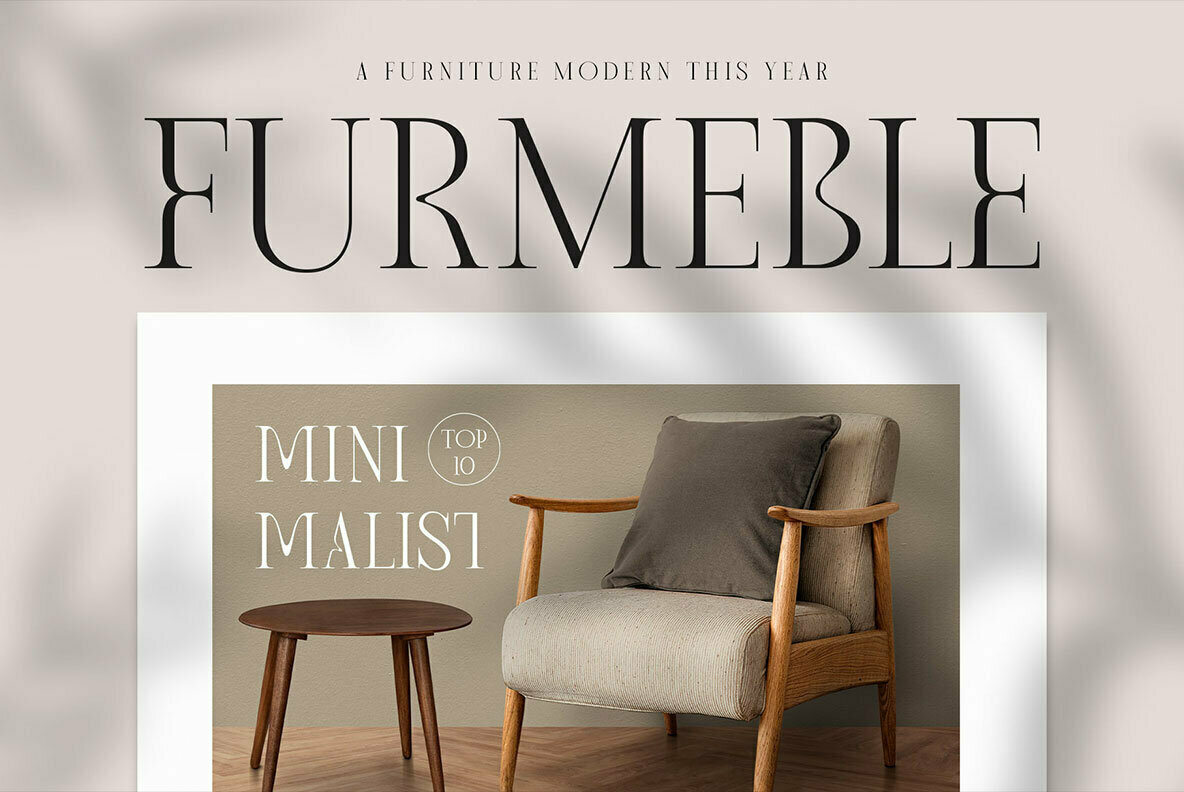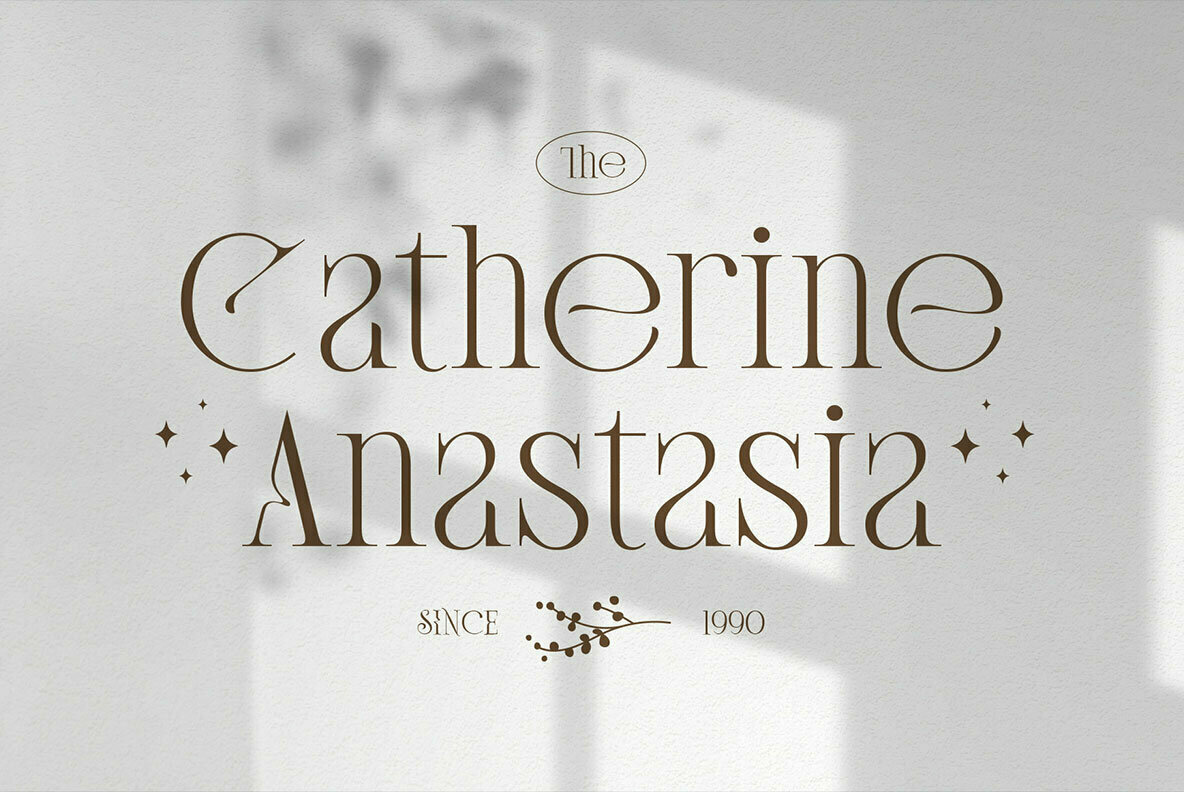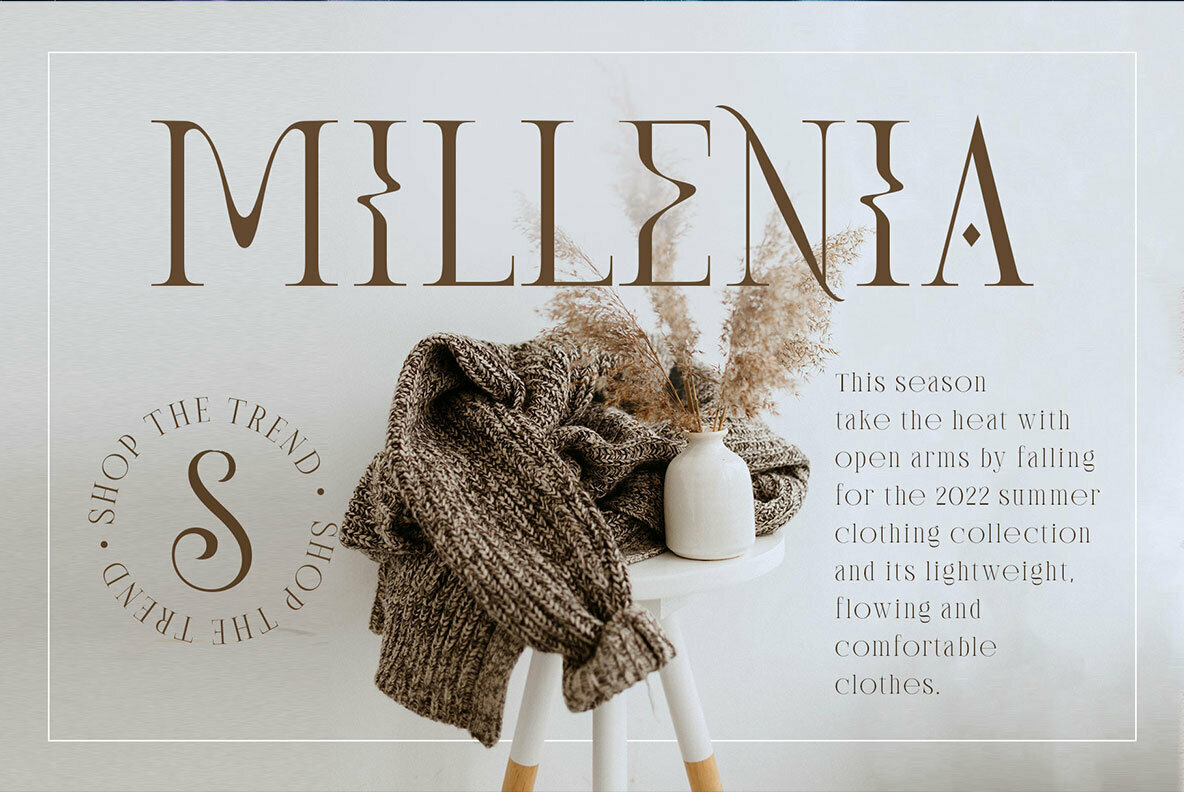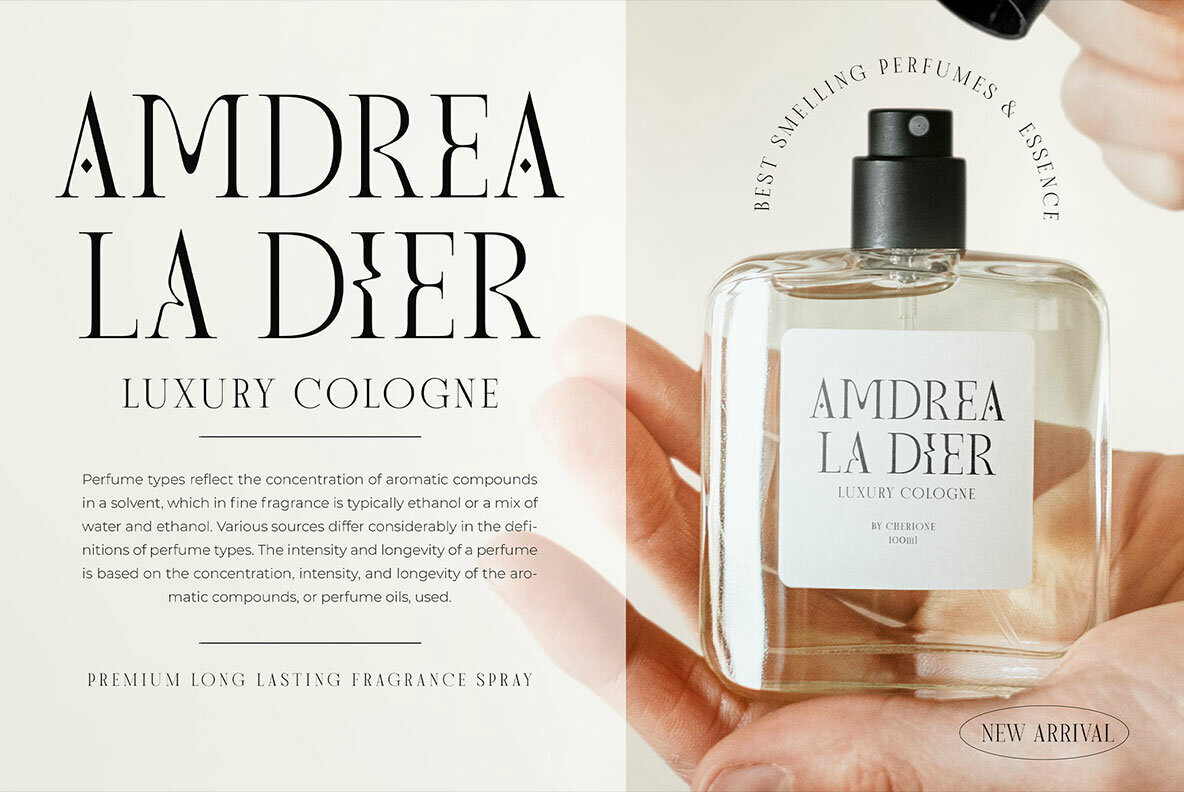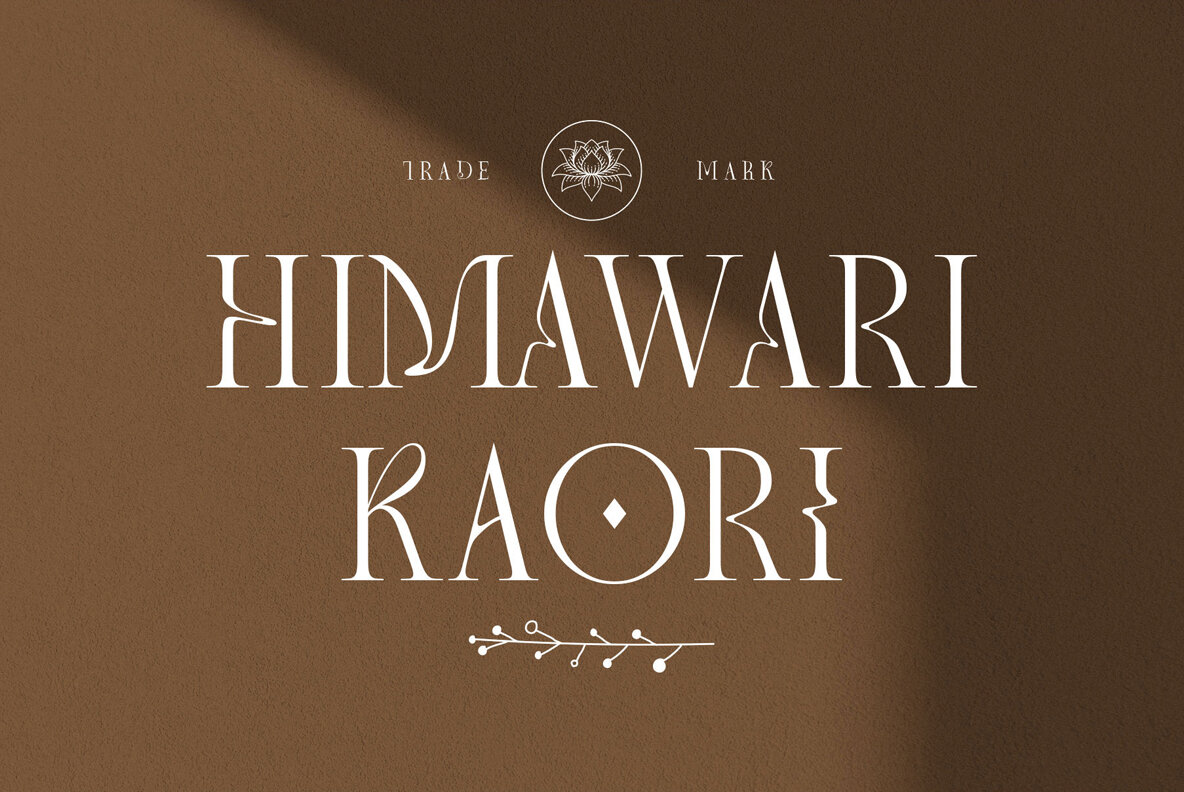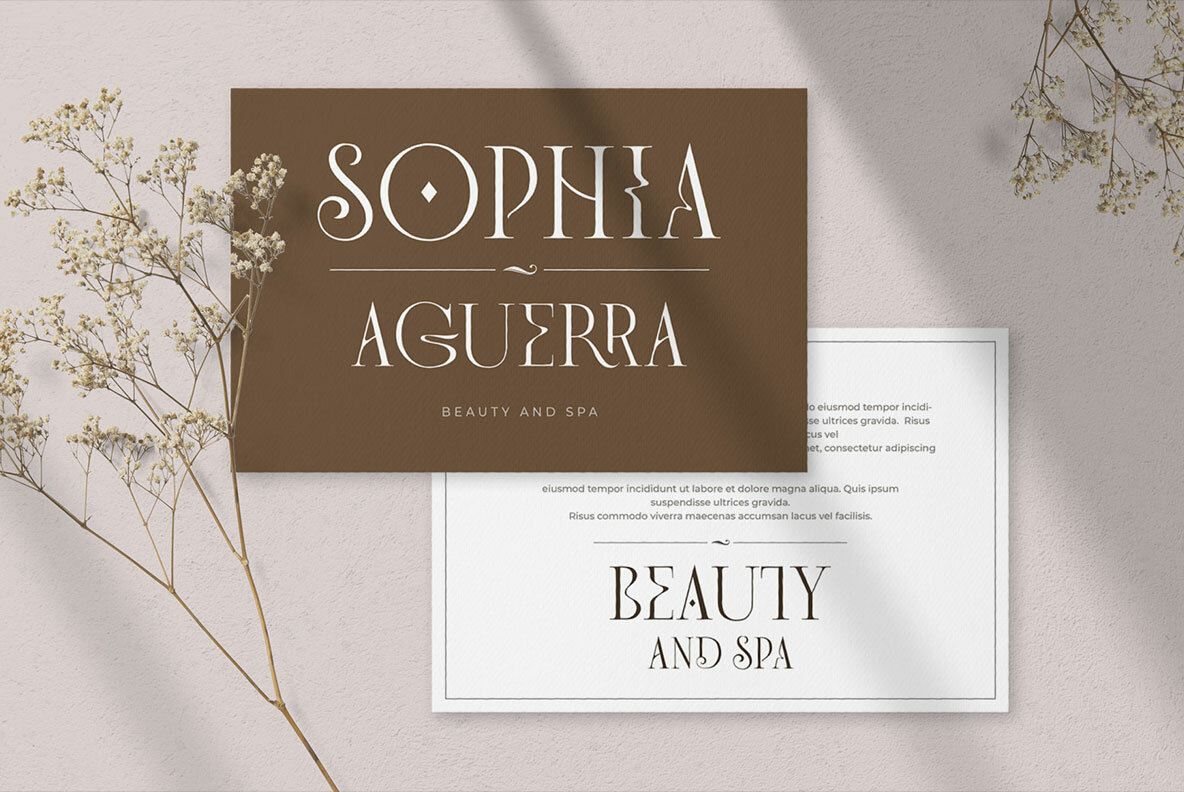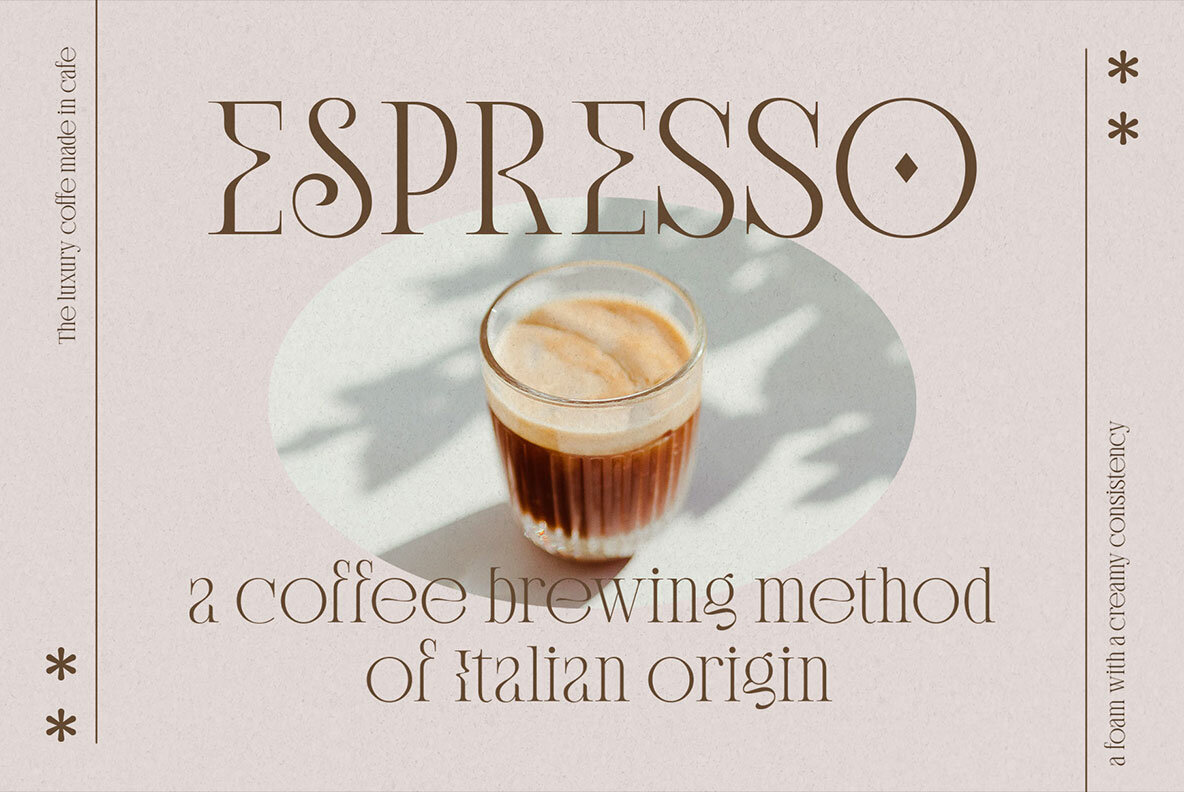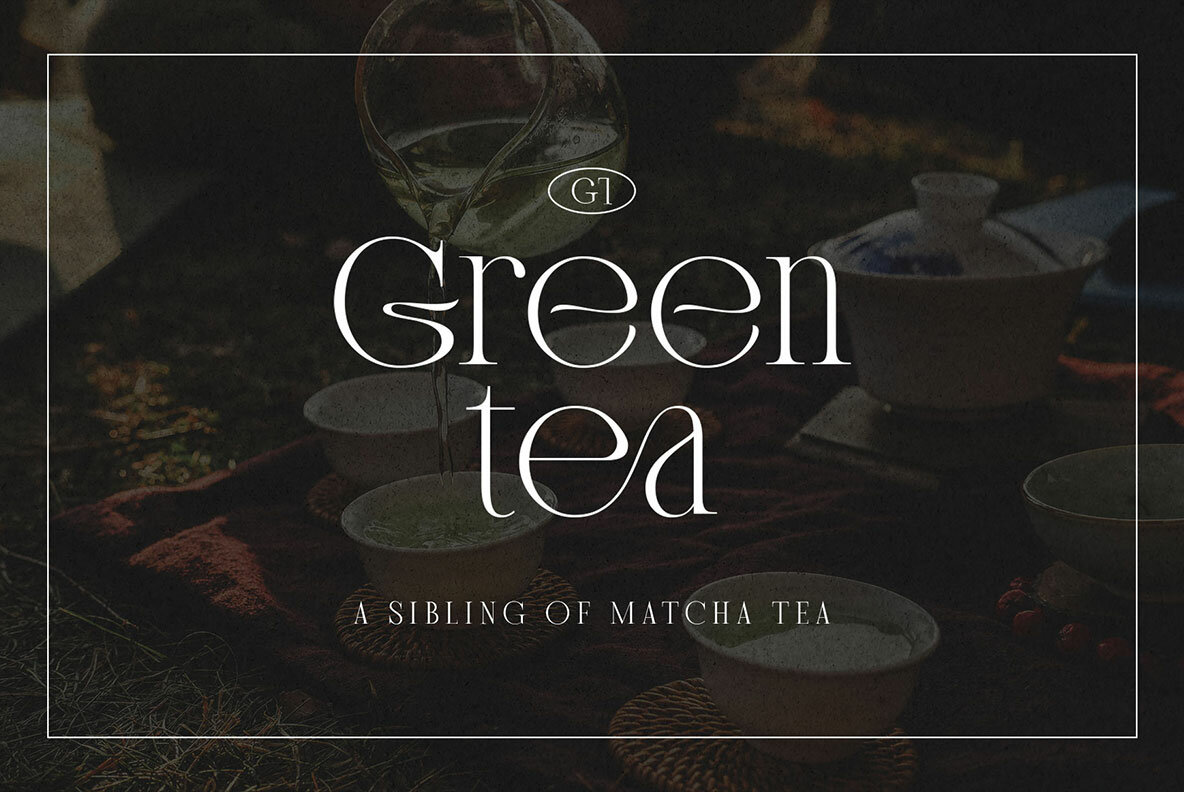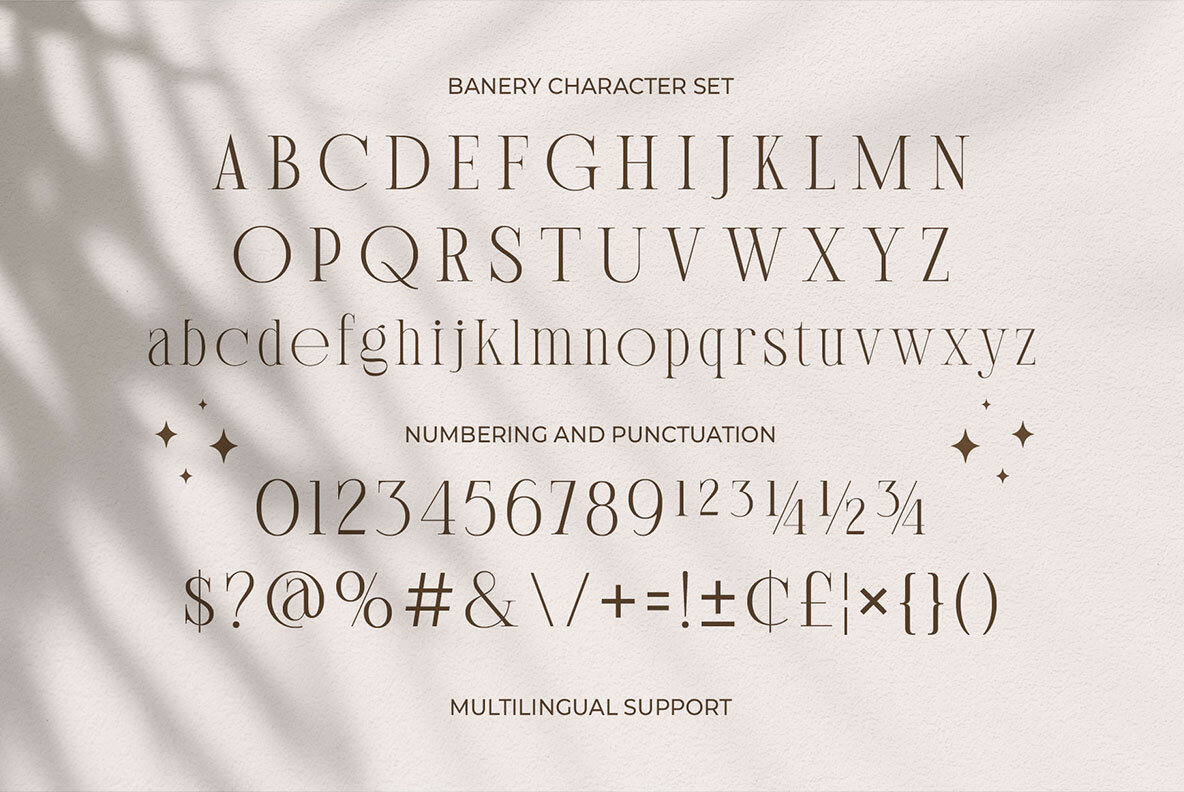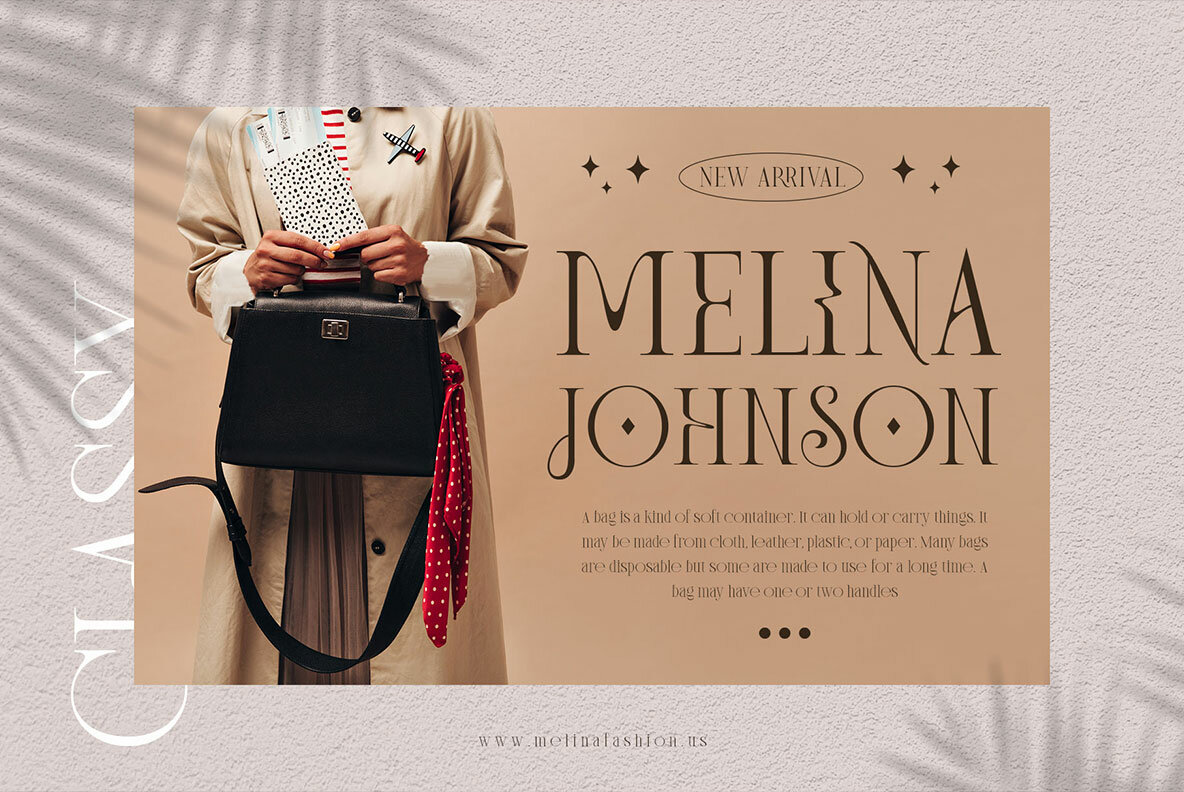
Banery Font
Banery Regular
Banery is a modern serif with geometric shapes and high contrast of strokes. It also includes alternates characters that have unique markings, which give it an elegant yet exclusive look perfect for any project where you want something simple but still stand out from the crowd!